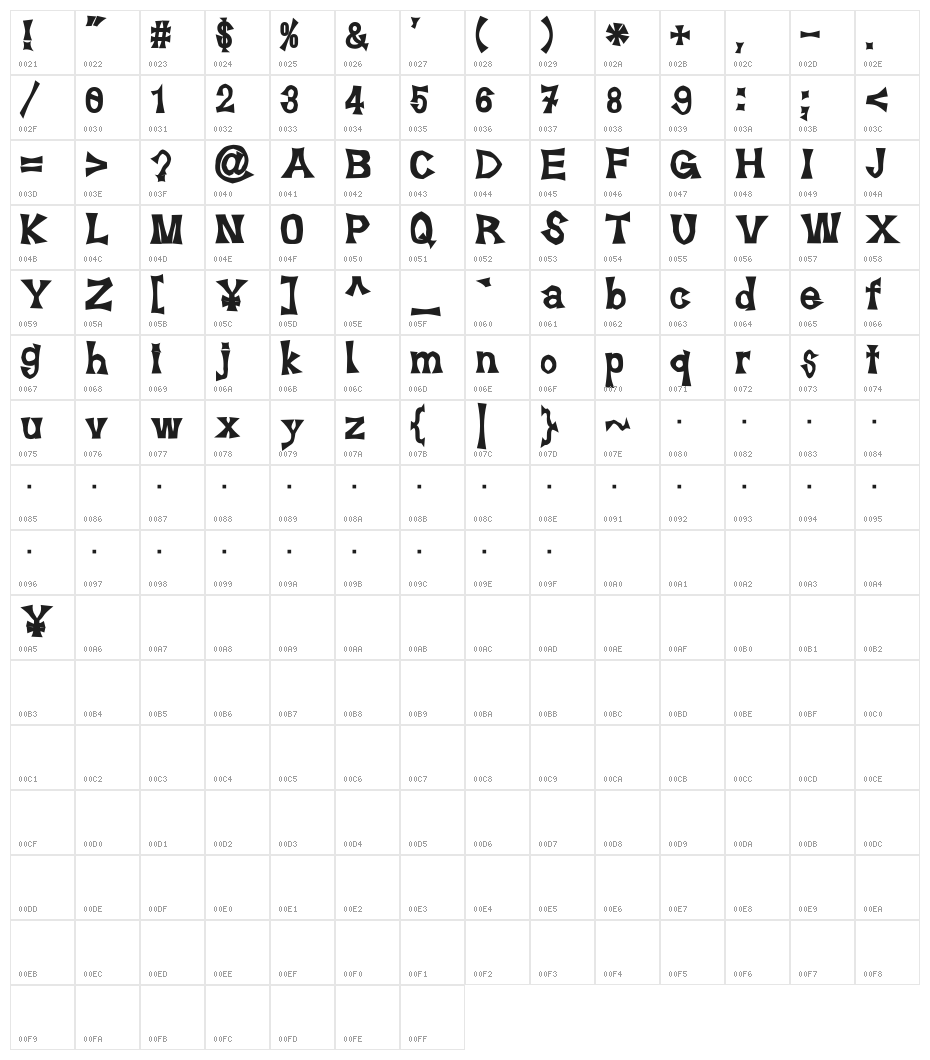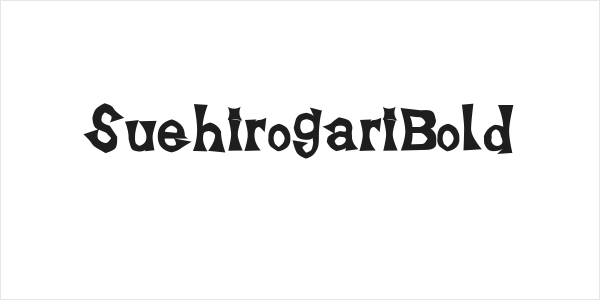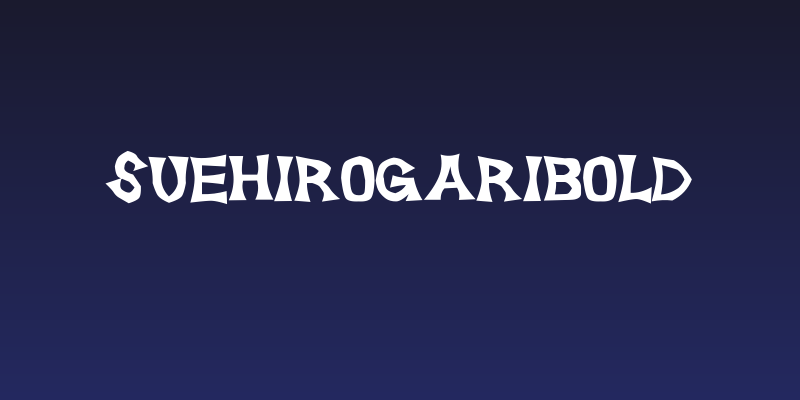
SuehirogariBold Font
SuehirogariBold Description
This font features a bold and dynamic style with sharp, angular edges and a playful, whimsical character. The uppercase and lowercase letters exhibit a unique, irregular form that adds a sense of movement and energy. The numerals and special characters maintain this distinctive style, making the font suitable for creative and eye-catching designs. Its bold appearance and high contrast in stroke thickness make it stand out, while the character spacing is relatively tight, contributing to its compact and impactful look.
| Use Case | Logos, Posters, Headlines |
| Proposed Projects | Ideal for posters, logos, and creative branding projects that require a bold and playful touch. |